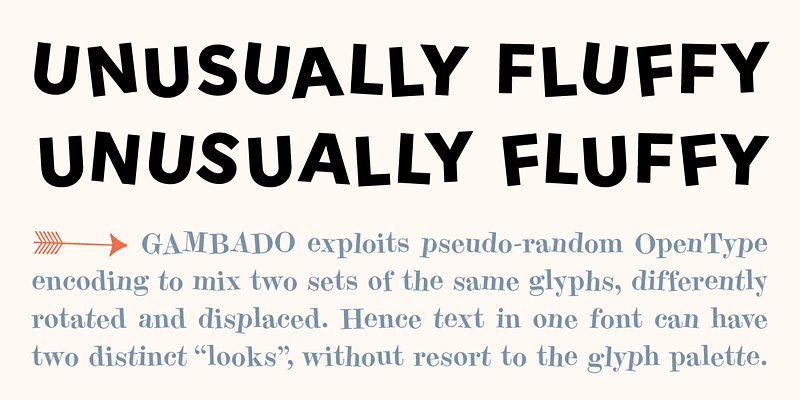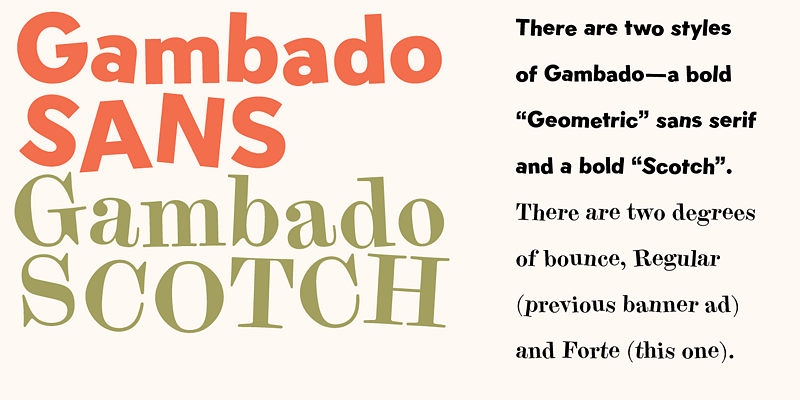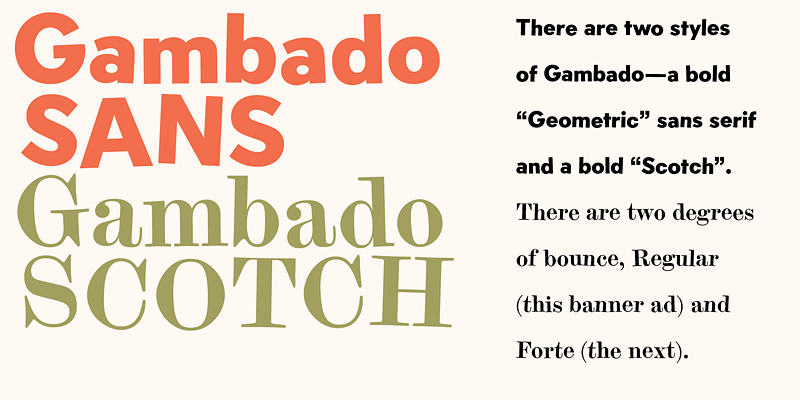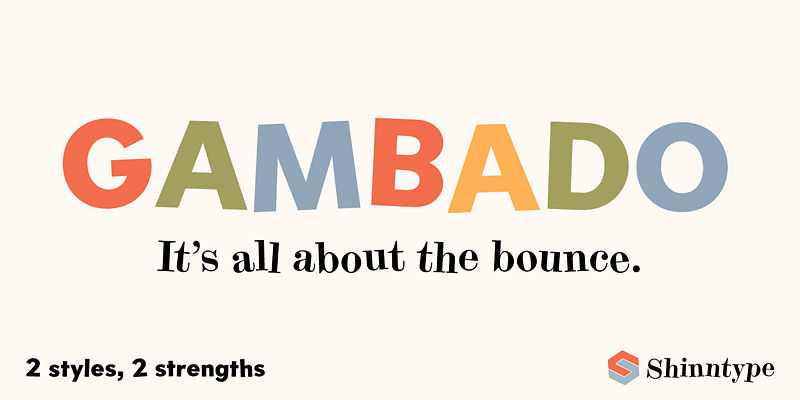
‘Bounced’ is the technical term for a higgledy-piggledy style of lettering in which characters are shaken up by a combination of rotation and vertical displacement from the presumed norm of upright stance on a baseline. Now, by utilizing pseudo-random contextuality in the OpenType format, Gambado creates complex, default bouncing automatically through the agency of a font, rather than letter-by-letter manu-al adjustments at the level of layout.